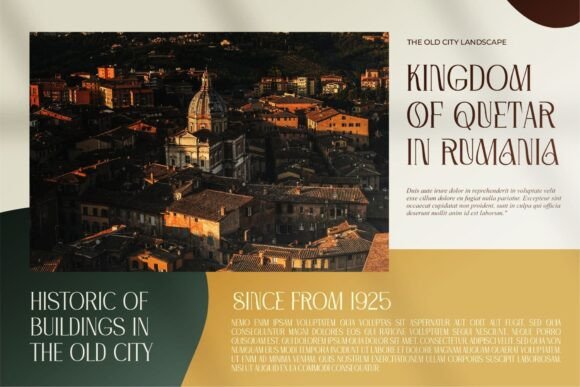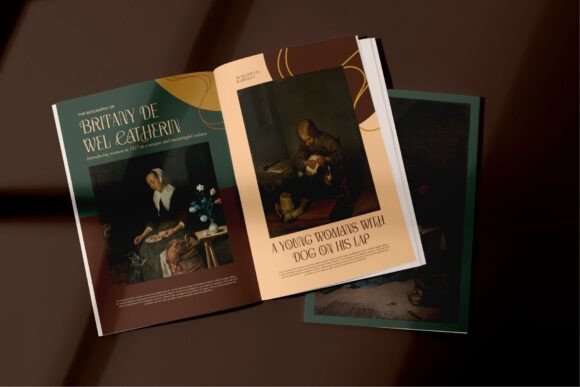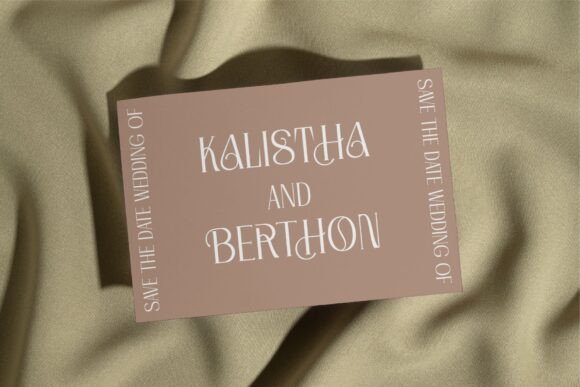
Introduction to Remonsa Font
Have you ever been stuck in the middle of a creative project, desperately searching for the perfect font to elevate your design? The moment of frustration is all too familiar for many designers. But, what if I told you that you’ve just stumbled upon the perfect solution – the Remonsa Font.
Remonsa Font is a classic serif font that exudes elegance and sophistication. With its timeless appeal, it’s no wonder why it’s a favorite among designers. Whether you’re creating an invitation card, designing a company logo, or crafting movie titles, the Remonsa Font is the perfect design resource to bring your vision to life. And the best part? It’s available for free download, allowing you to focus on what truly matters – bringing your creative ideas to fruition.
As a high-quality font with a transparent background, the Remonsa Font offers endless possibilities for your next design project. Its versatility and sophistication make it an invaluable asset for designers, ensuring that your work stands out from the crowd.
Key Features of Remonsa Font
- High-quality font with a transparent background, perfect for creative projects requiring a clean and minimalist design.
- Designed with a modern and elegant aesthetic, making it an ideal design resource for professional and personal projects alike.
- Features a unique, hand-drawn style that sets it apart from other fonts, adding a touch of personality to any creative project.
Honest Review: Remonsa Font
As a designer, I’m always on the lookout for high-quality design resources to elevate my creative projects. Recently, I stumbled upon the Remonsa Font, and I must say it’s been a great addition to my design toolkit.
- High-quality font with crisp, clear lines
- Transparent background, making it easy to overlay on different backgrounds
- Only available in a limited number of font styles (e.g. regular, bold)
Overall, I’m impressed with the Remonsa Font. It’s a solid choice for designers working on creative projects that require a clean, modern aesthetic. While it may have some limitations, it’s definitely worth checking out for free download.
Using Remonsa Font in Creative Projects
Remonsa Font is a high-quality design resource perfect for creative projects. You can use it to add a touch of elegance to your designs. The font’s transparent background makes it ideal for overlaying on images or videos.
Remonsa Font is commonly used in:
- Wedding invitations and stationery.
- Branding and logo design.
- Editorial and publishing projects.
Alternatives to Remonsa Font
Alegreya Font
Alegreya is a high-quality serif font ideal for creative projects requiring sophistication and elegance. It features a wide range of weights and supports multiple languages. When to use: Book covers, magazines, and any project where a professional and refined look is needed. Comparison to Remonsa Font: Alegreya has a more traditional feel, while Remonsa Font is more modern and playful.
Lato is a clean and modern sans-serif font suitable for a variety of creative projects, including logos, websites, and mobile apps. It comes in multiple weights and supports a wide range of languages. When to use: Branding, digital products, and any project where a clear and legible font is necessary. Comparison to Remonsa Font: Lato is more minimalist and versatile than Remonsa Font.
Does the Remonsa Font have a transparent background?
Yes, the Remonsa Font is designed with a transparent background, making it suitable for use on various backgrounds and design elements. This feature allows for seamless integration with other design resources and enables you to create visually appealing and professional-looking designs.